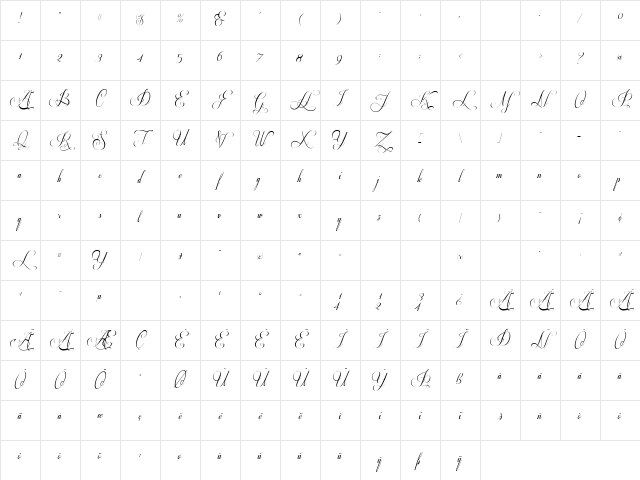
Respective 2.0 Regular Free Font
Respective 2.0 Regular
Foundry: M￿ Greb￿
Designer: M￿ Greb￿
Design Context for Respective 2.0
Respective 2.0 is a composed and adaptable typeface that performs quietly and consistently across a wide range of design contexts.
Who designed the Respective 2.0 Regular font?